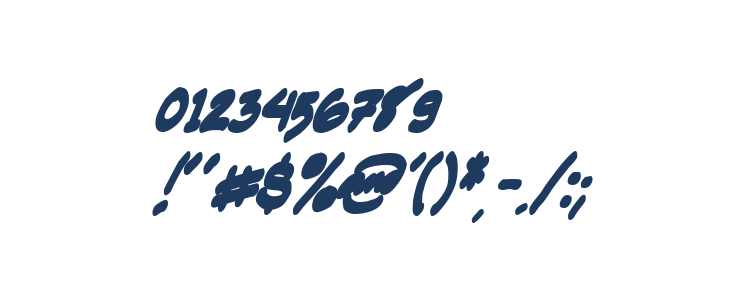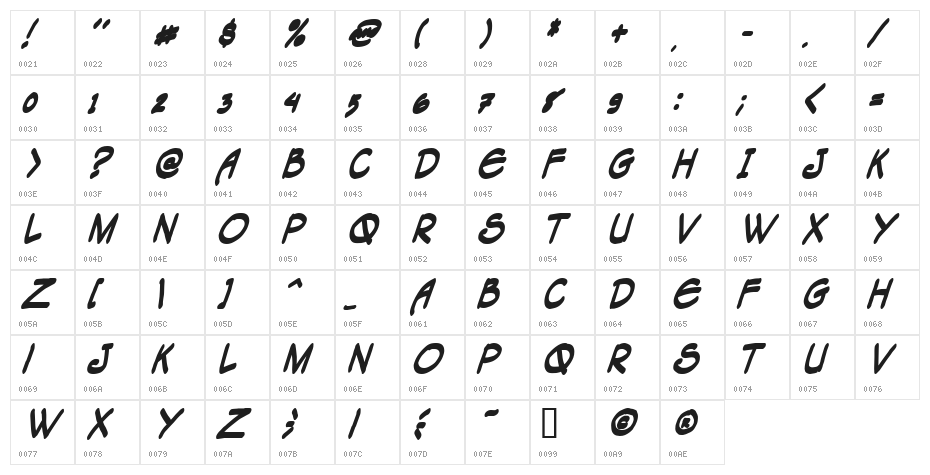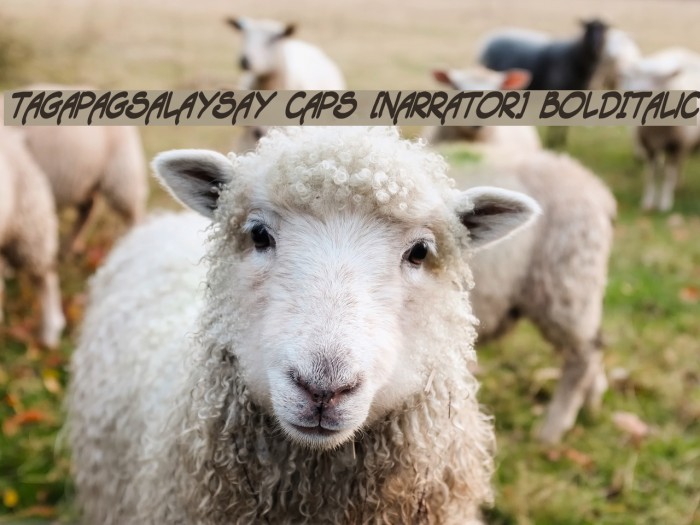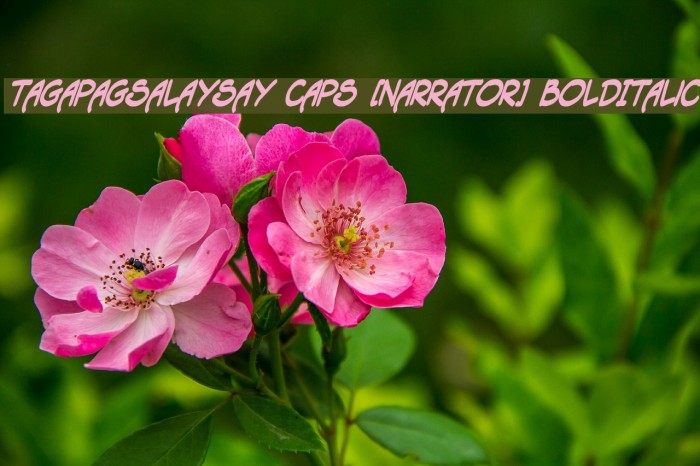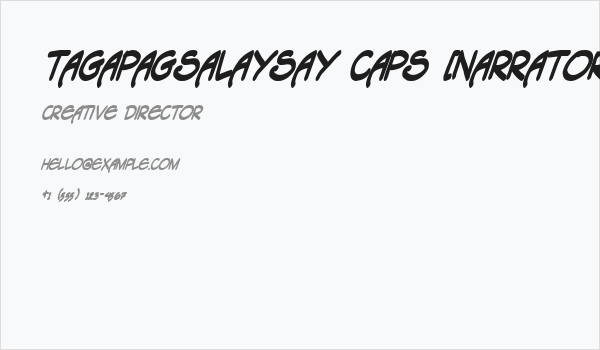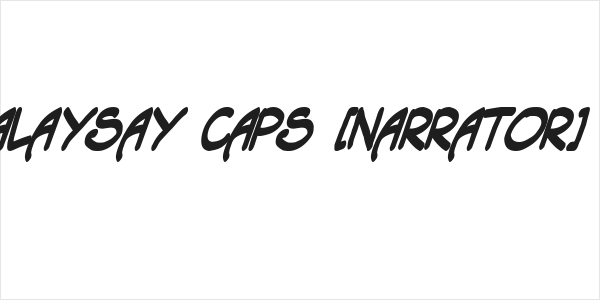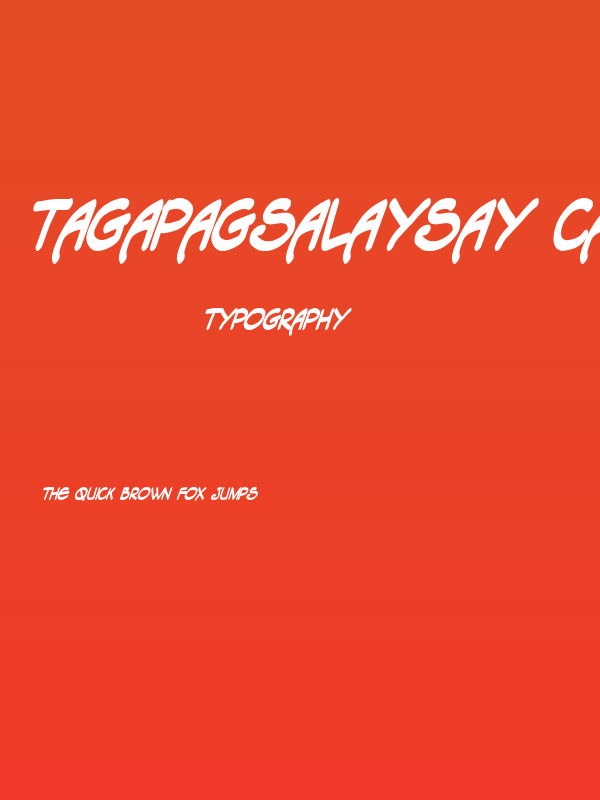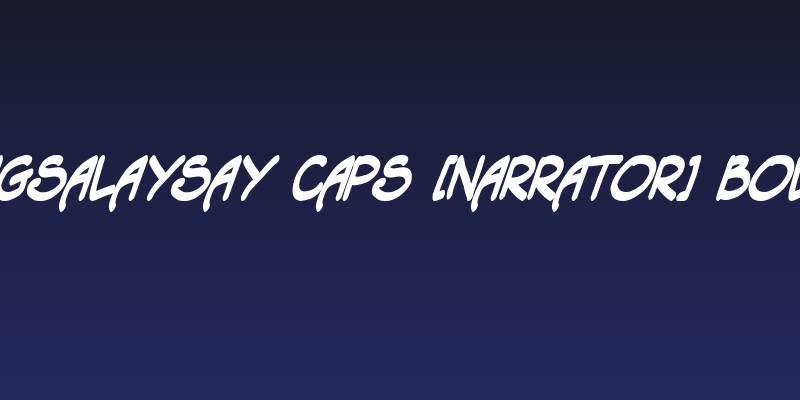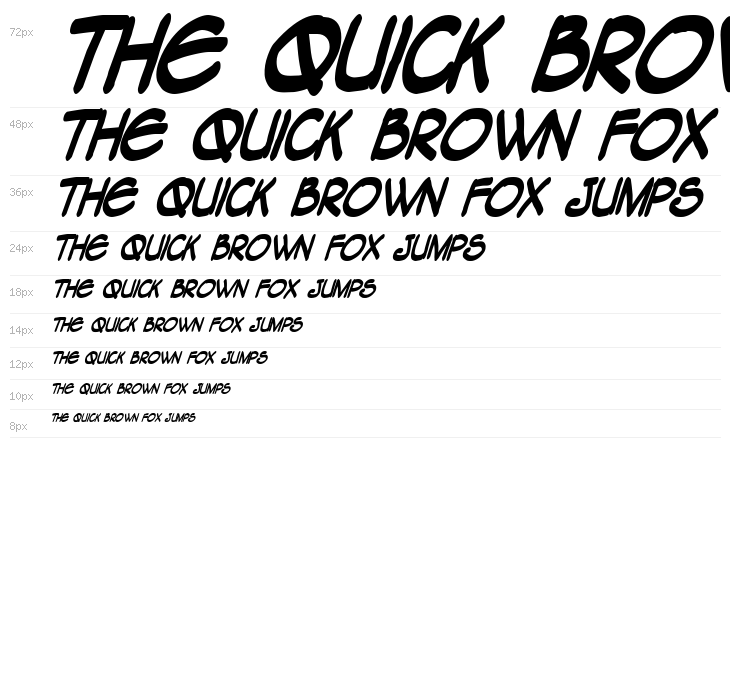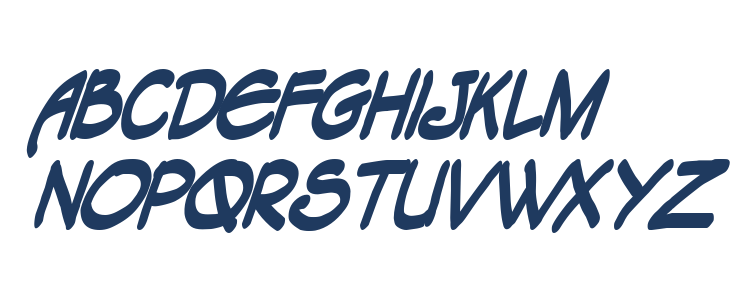
Tagapagsalaysay Caps [Narrator] BoldItalic Font
Tagapagsalaysay Caps [Narrator] BoldItalic Description
This font features a bold and italicized style with a dynamic and energetic appearance. The characters are slanted, giving a sense of motion and fluidity. The strokes are thick and consistent, contributing to a strong visual impact. The uppercase and lowercase letters maintain a cohesive look, with rounded edges and a slightly condensed form. The numbers and special characters follow the same bold and italicized design, ensuring uniformity across all glyphs. This font is suitable for projects that require a bold statement and a modern, playful touch.
| Proposed Projects | Ideal for branding, posters, headlines, and any design needing a bold, modern touch. |